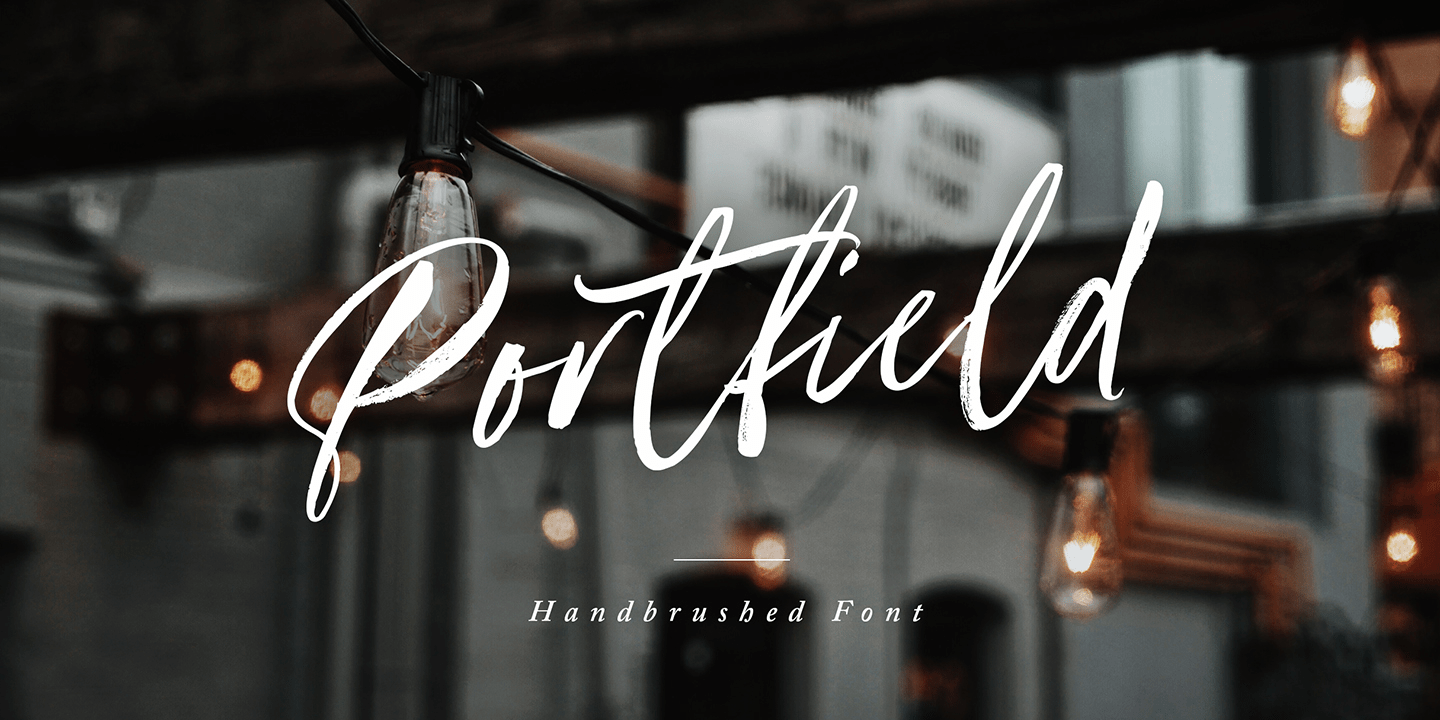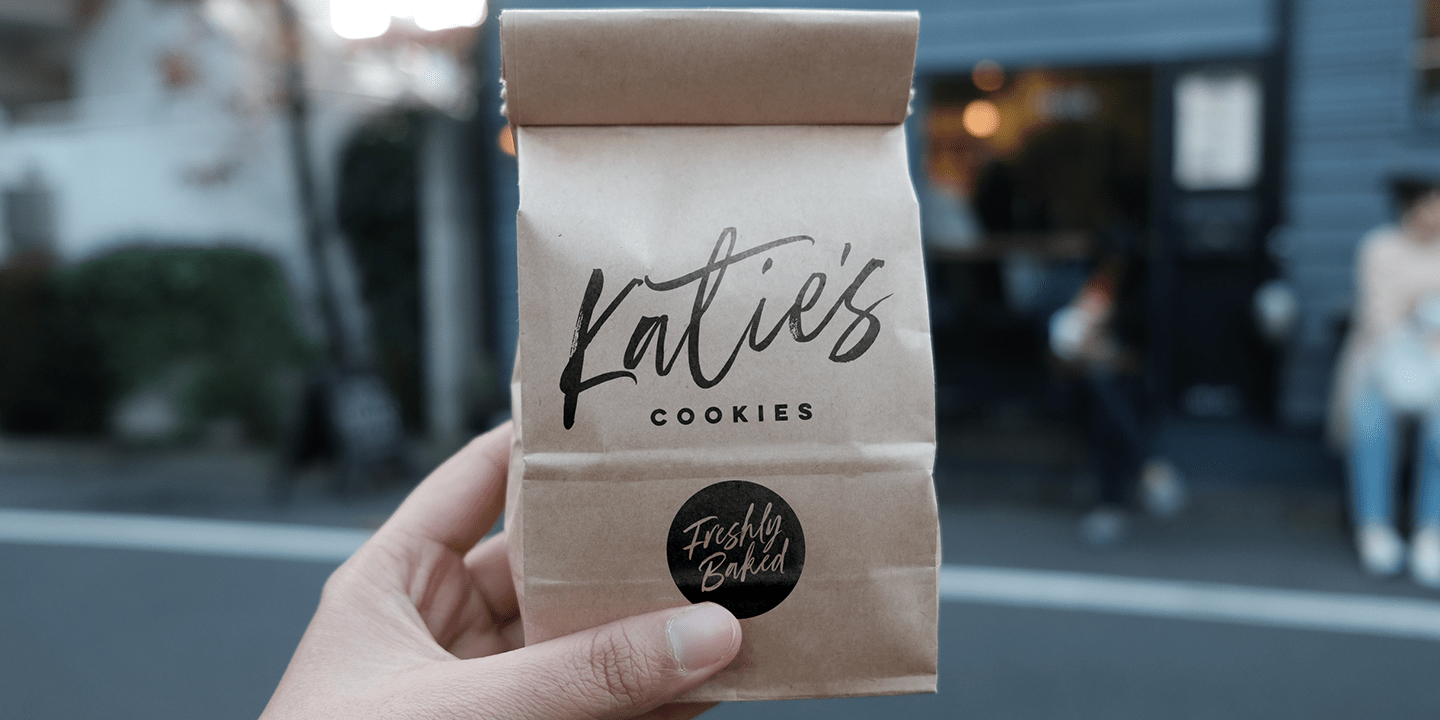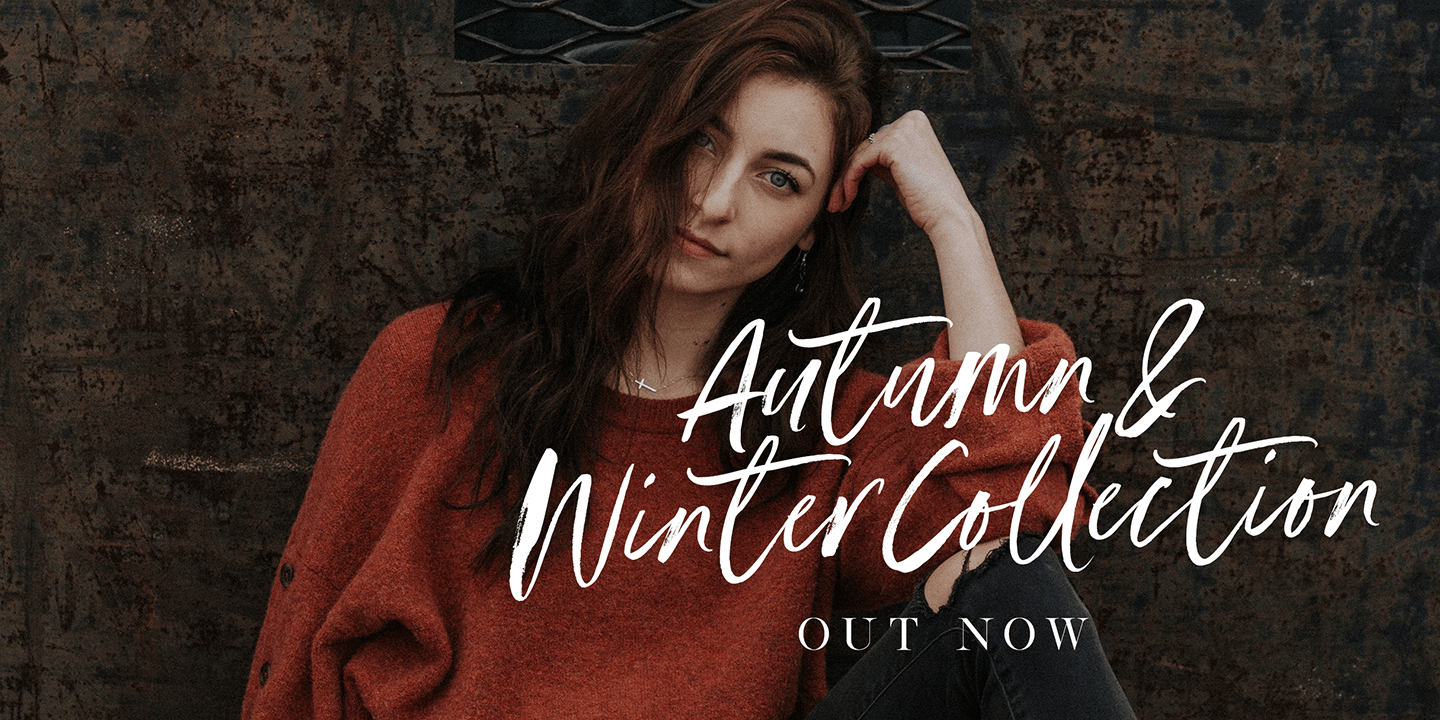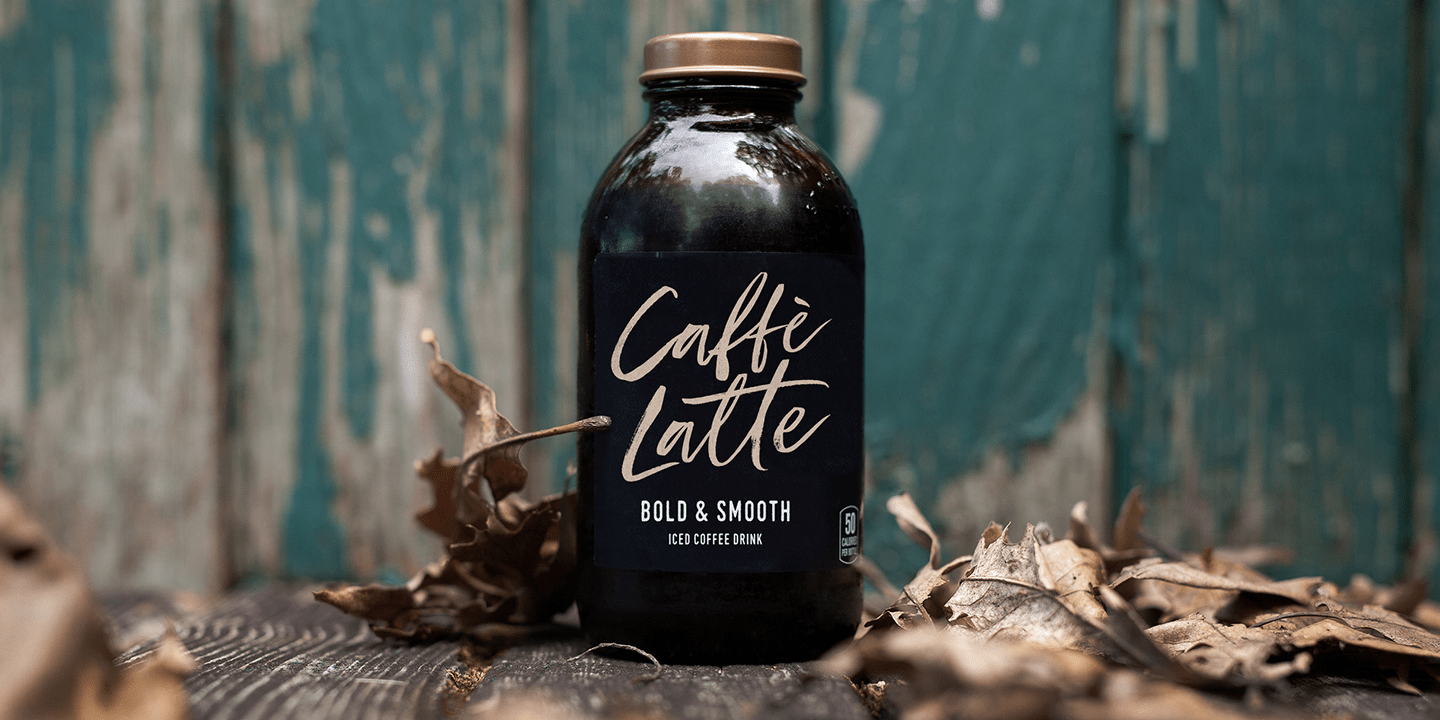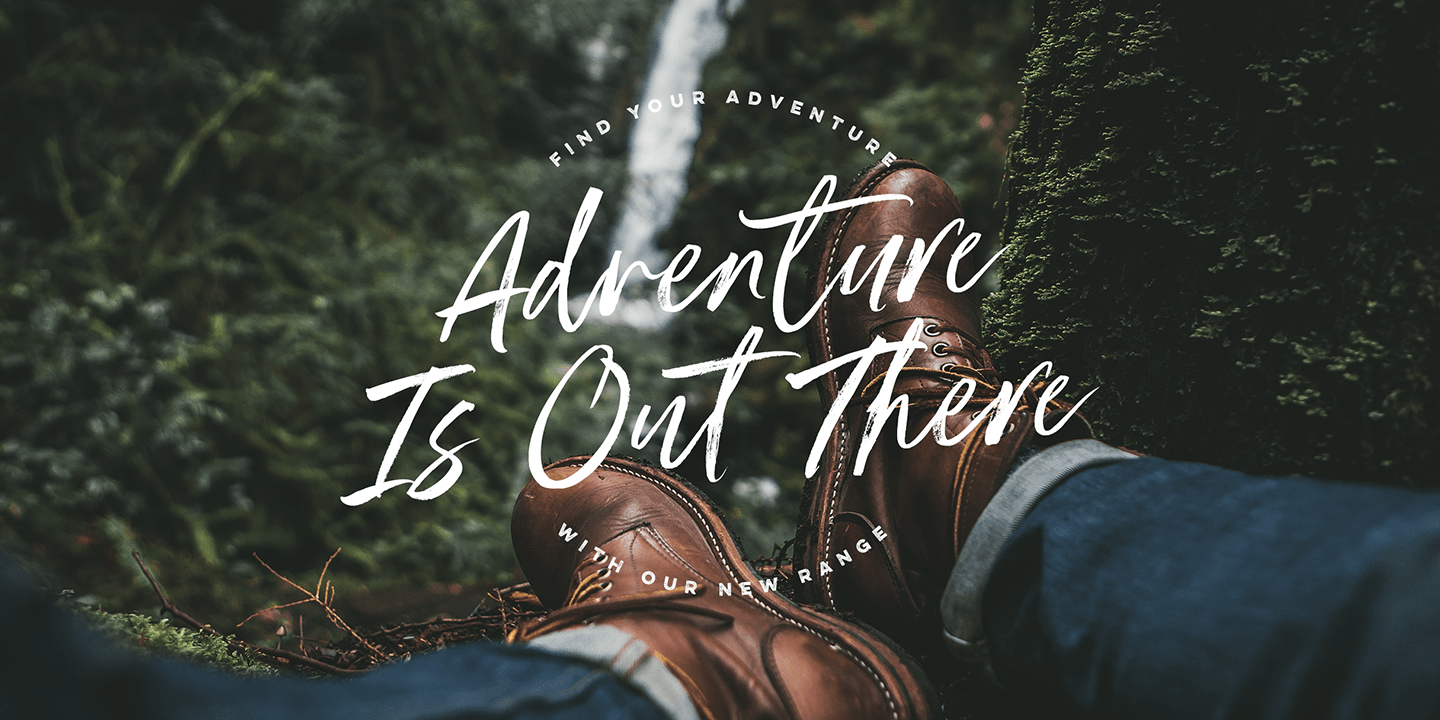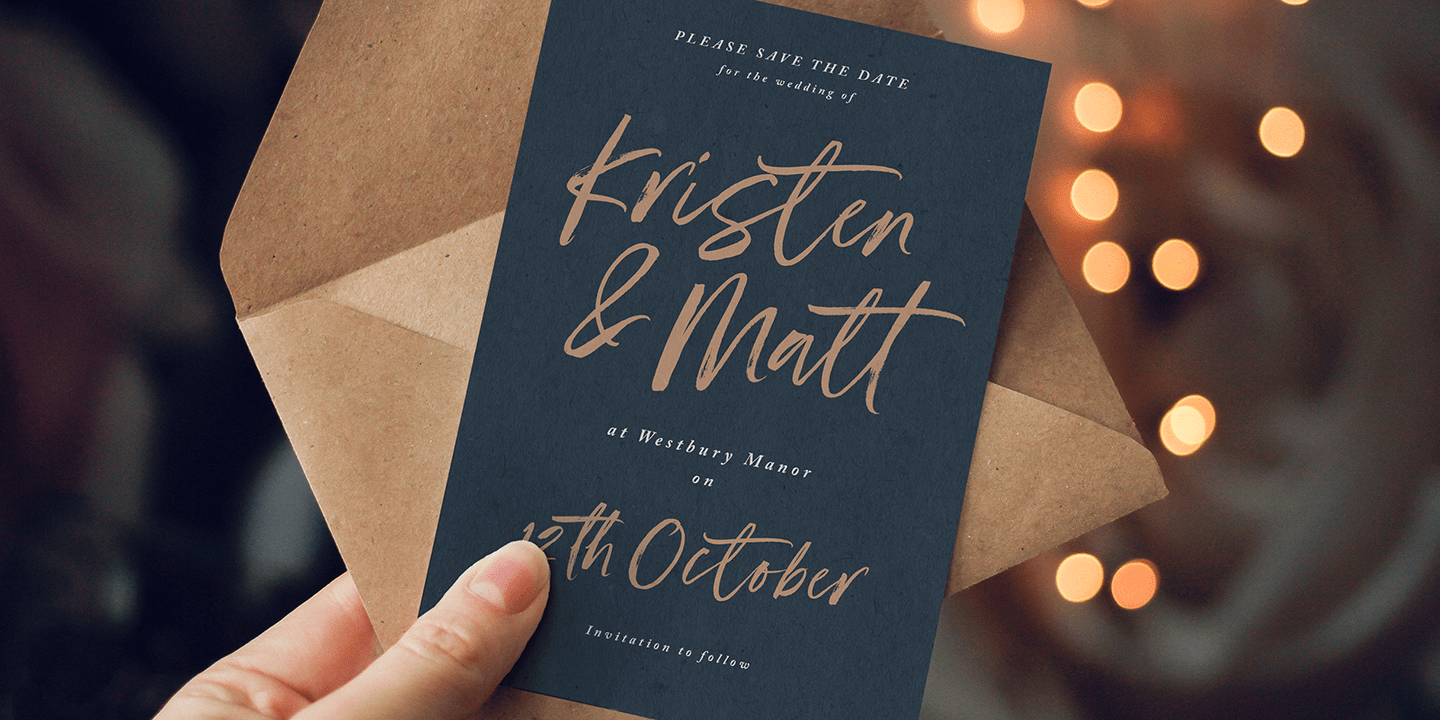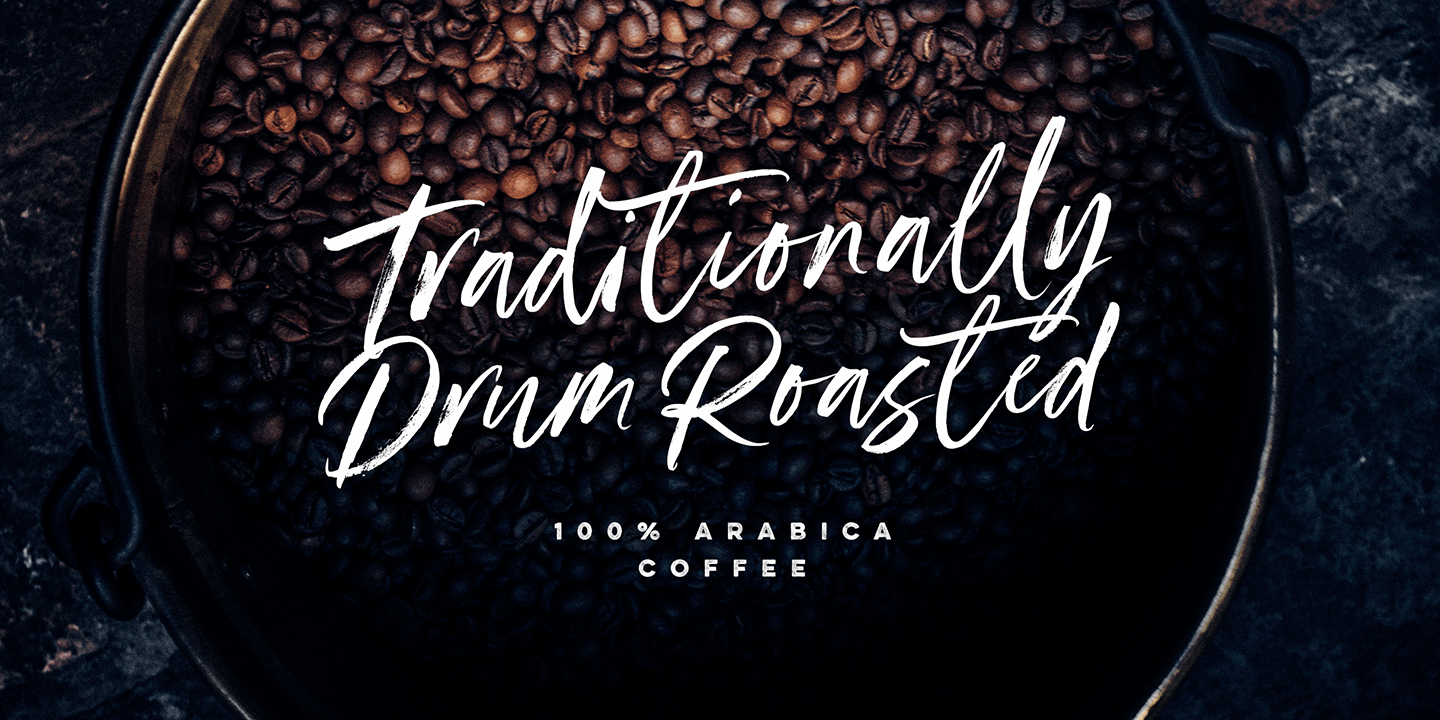
Portfield
Font Family by Set Sail Studios
Introducing Portfield; A strikingly versatile and charming brush script font, hand-brushed with care. With organically flowing letters and a real brush pen texture, Portfield provides a perfect balance of casual yet captivating lettering for your design projects. Porfield was created as a 'go-to' brush font, with the ability to slot right in to a wide range of projects and instantly add a touch of personality and warmth. It lends itself perfectly to commercial lettering and suits large display text for advertisements, product packaging, branding, logos, invitations and merchandise. Portfield includes two sets of each letter provided in the 'Regular' and 'Alt' versions, along with 15 ligatures, allowing you to recreate a custom hand-lettered aesthetic. Portfield supports the following languages; English, French, Italian, Spanish, Portuguese, German, Swedish, Norwegian, Danish, Dutch, Finnish, Indonesian, Malay, Hungarian, Polish, Croatian, Turkish, Romanian, Czech, Latvian, Lithuanian, Slovak, Slovenian